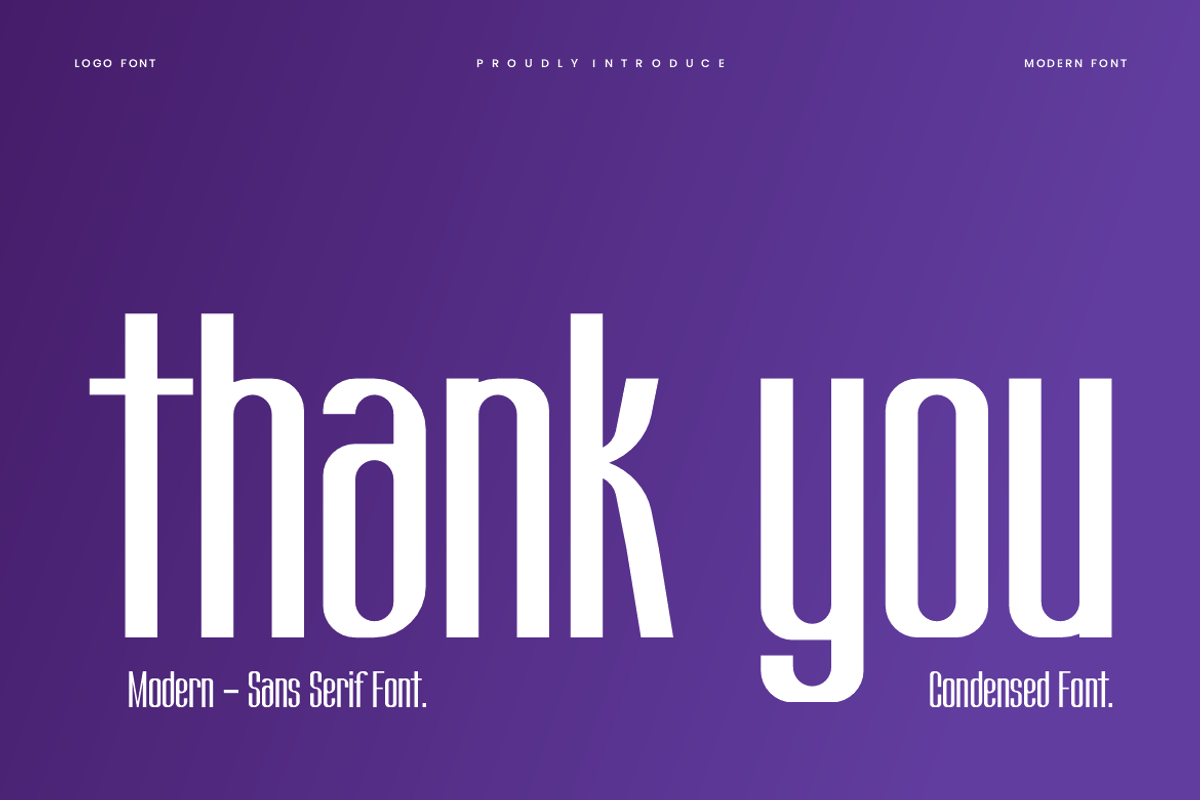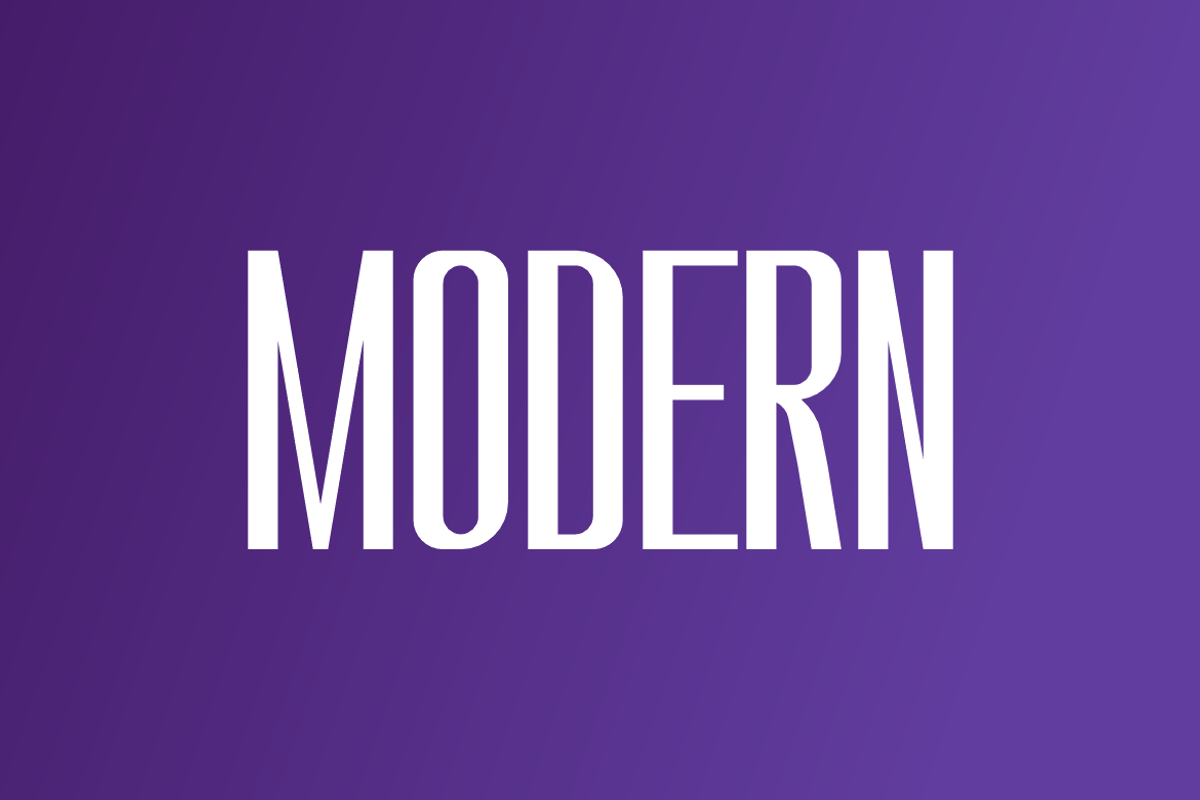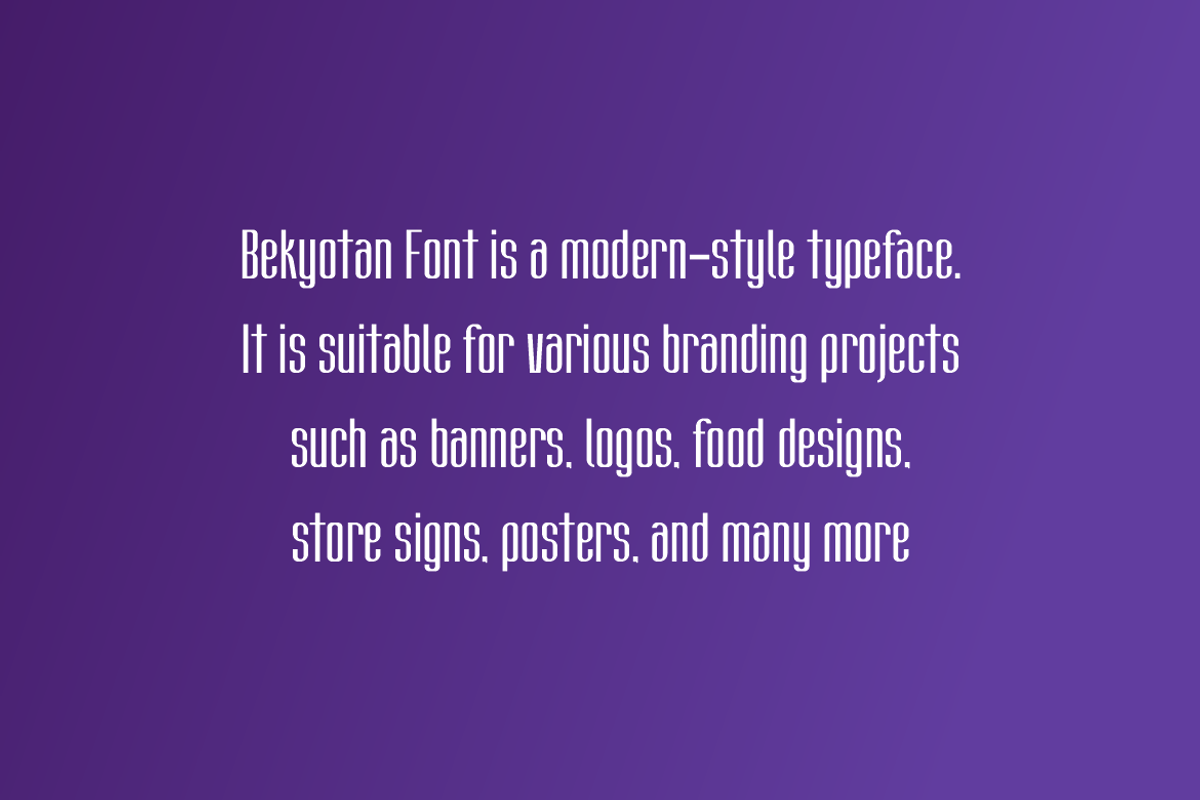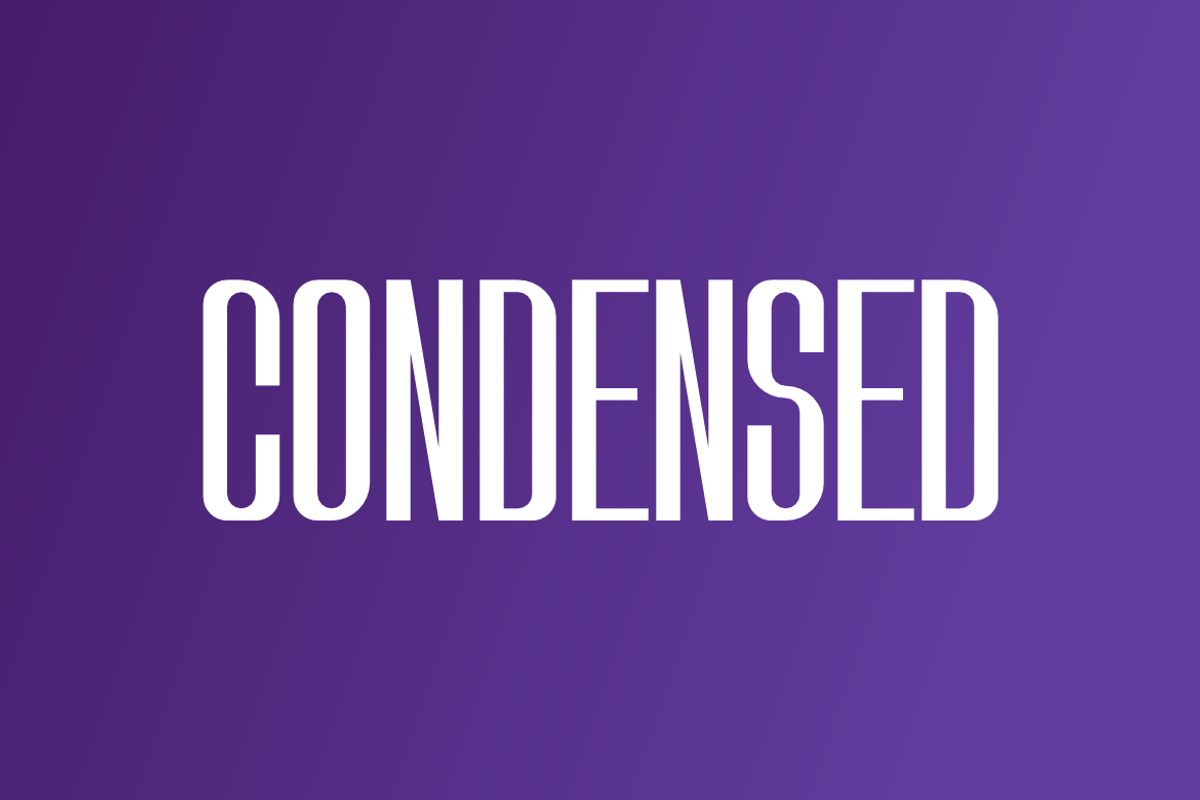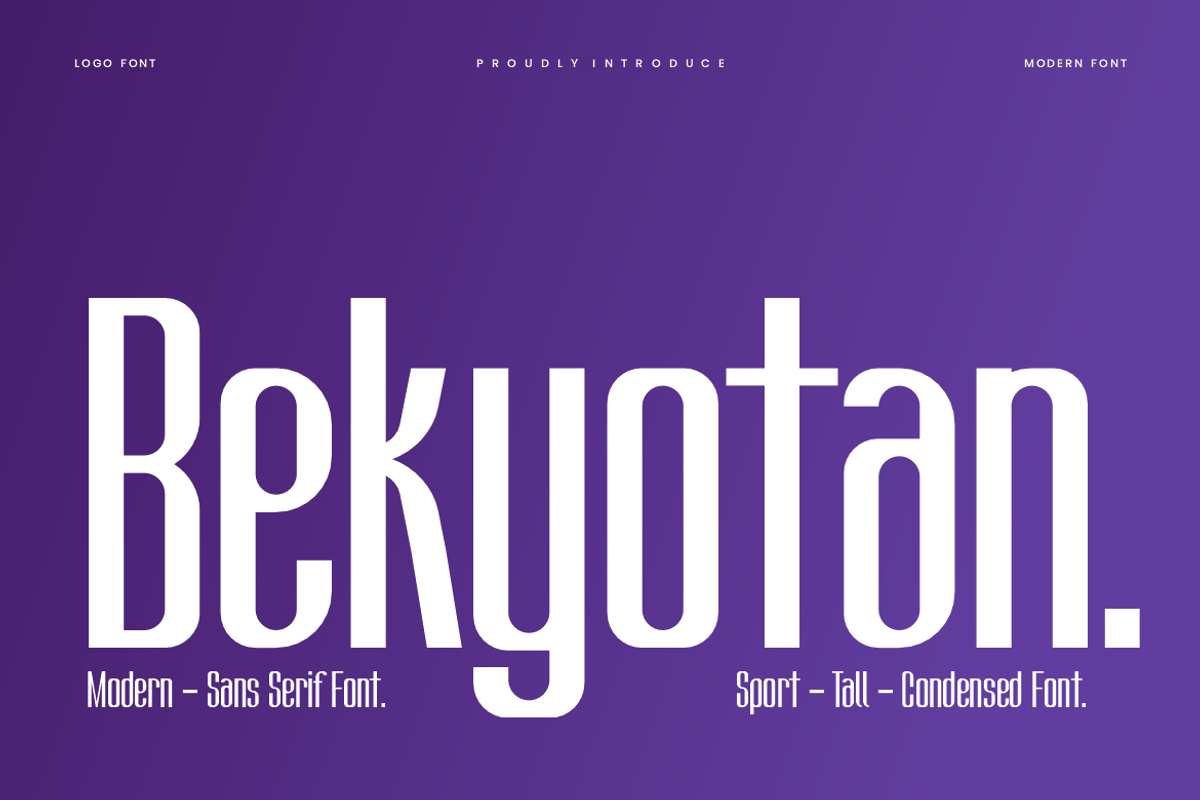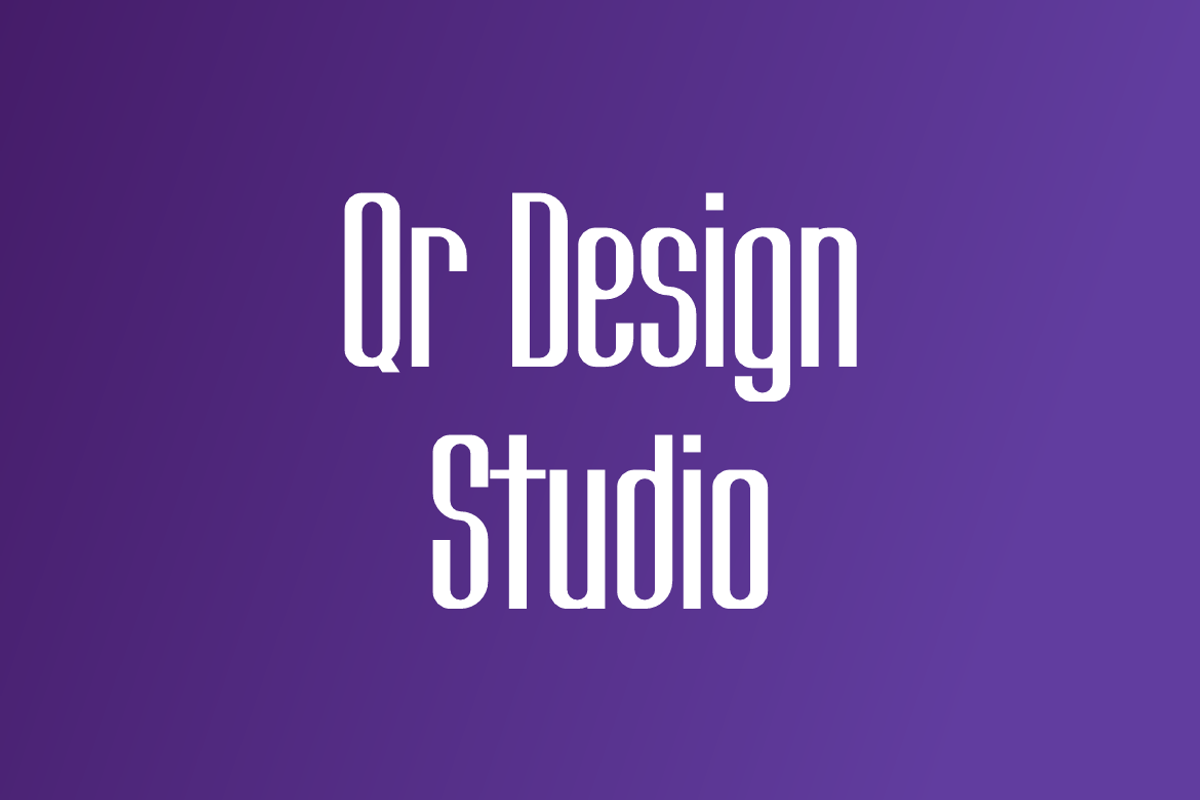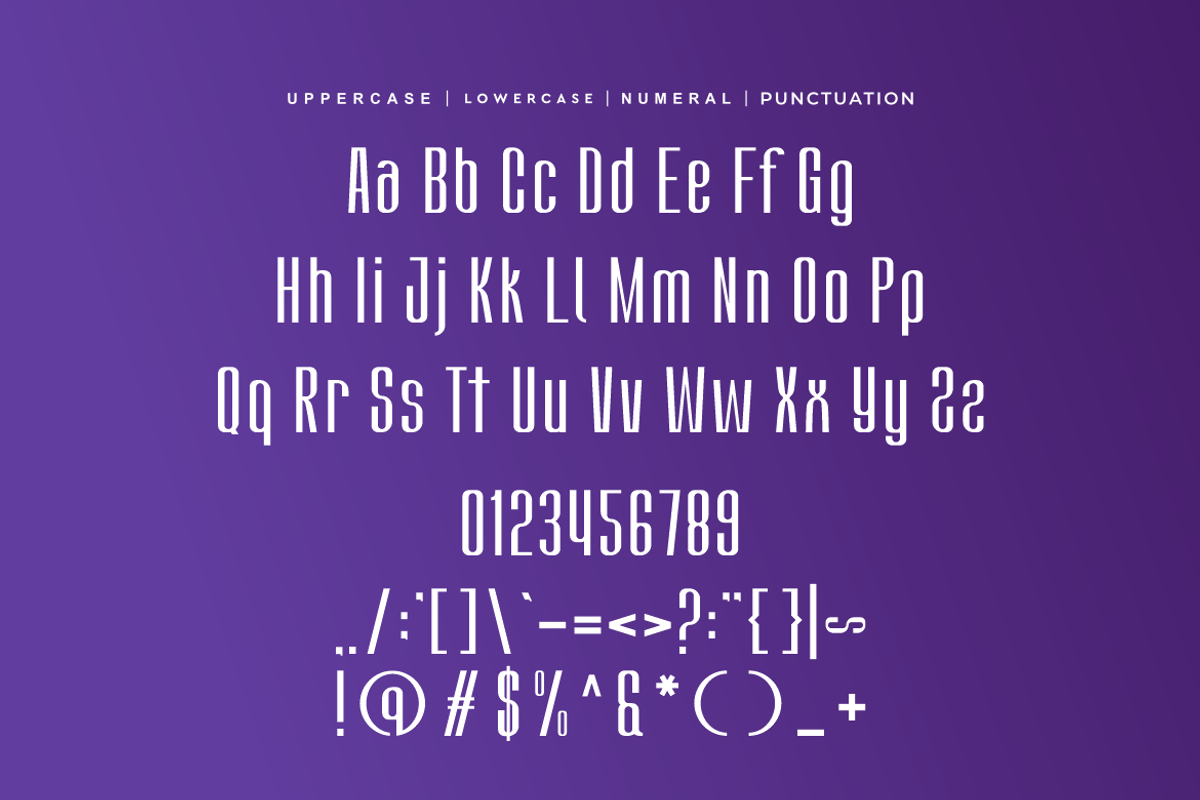
Bekyotan - Modern Sans Font
Bekyotan Font is a modern and authentic display typeface. It’s perfect for various branding projects such as logos, modern designs, and more. This font stands out beautifully in a wide range of contexts.